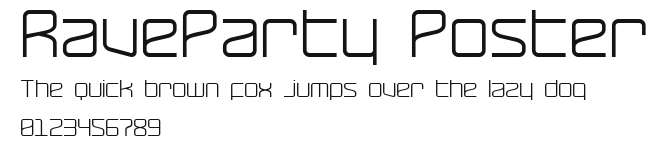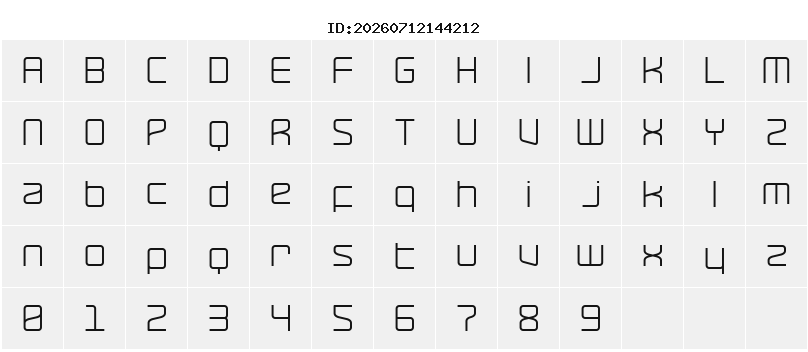
• Font Name: RaveParty Poster
• Full Font Name: RaveParty Poster
About RaveParty Poster.ttf
RaveParty Poster.ttf is a modern, elegant sans-serif font designed for ultimate readability and visual harmony. Perfect for branding, headlines, web design, and print materials.